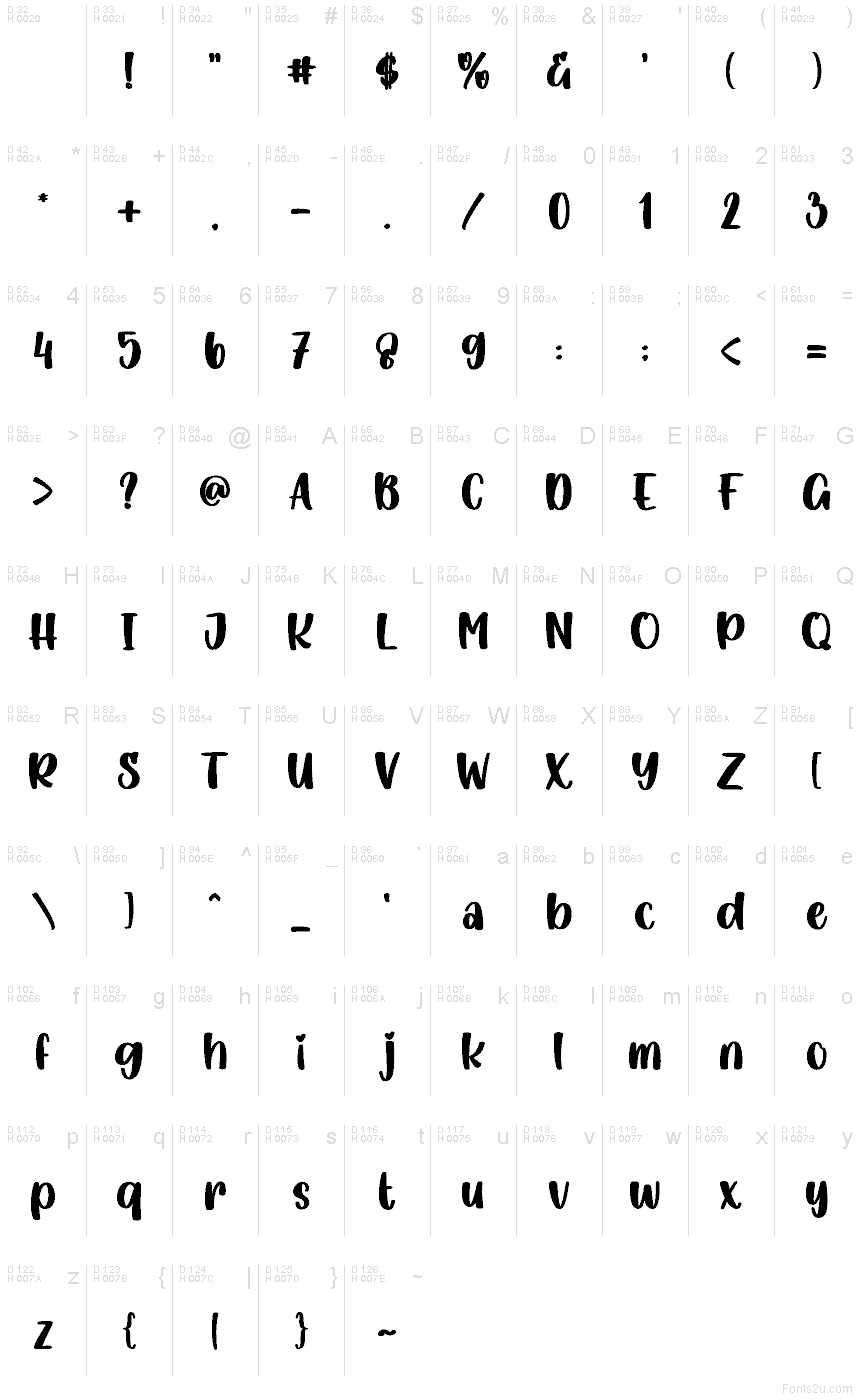
Christmas Buttermilk
Christmas Buttermilk font by Mozatype is a free cartoon display typeface that feels like it was lettered straight onto a holiday cookie tin. Thick, inky strokes, soft rounded edges, and a lively bounce between letters give it a warm, hand-painted look, while the scattered heart details add a cozy, storybook sweetness. It reads like festive handwriting on a chalkboard menu at a winter market—cheerful, casual, and instantly welcoming.
Using Christmas Buttermilk, you can bring that cozy charm to Christmas cards, advent calendars, gift tags, kids’ crafts, party invitations, and seasonal social posts. This free font works beautifully at larger sizes where its brushy texture and playful rhythm can really shine. Try pairing Christmas Buttermilk with a simple sans-serif for body text and keep plenty of breathing room around headlines so the letters have space to dance.